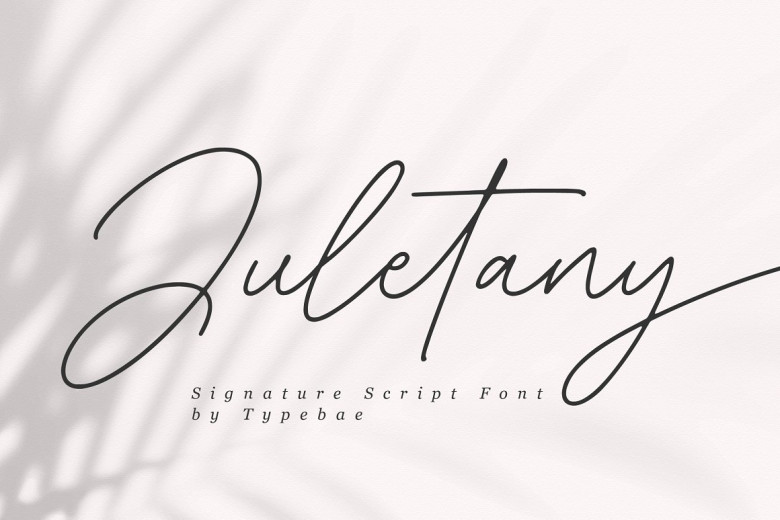
Juletany Font
Juletany features elegant swashes on both ends of each letter and includes ligatures to make certain letter combinations flow more naturally for an authentic appearance. It supports multiple languages and makes an excellent addition to a wide range of design projects.
Juletany Signature Script Font